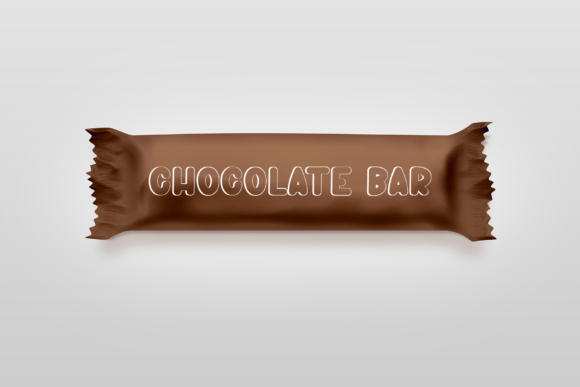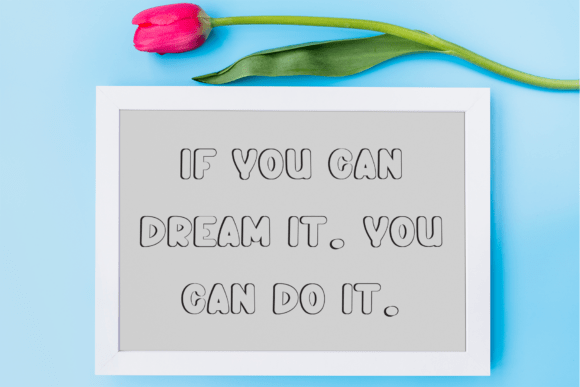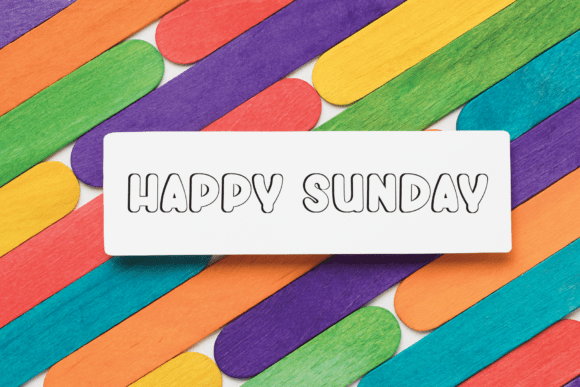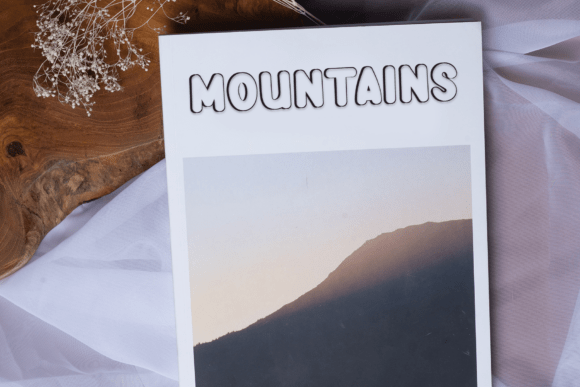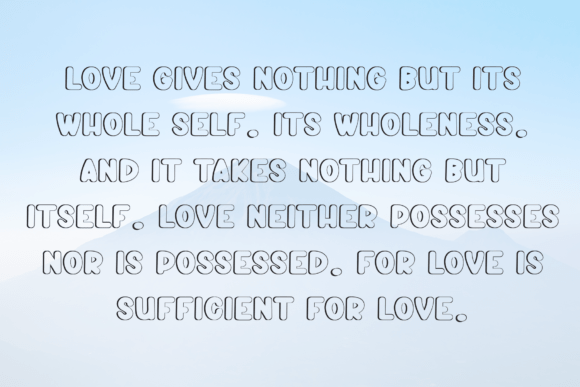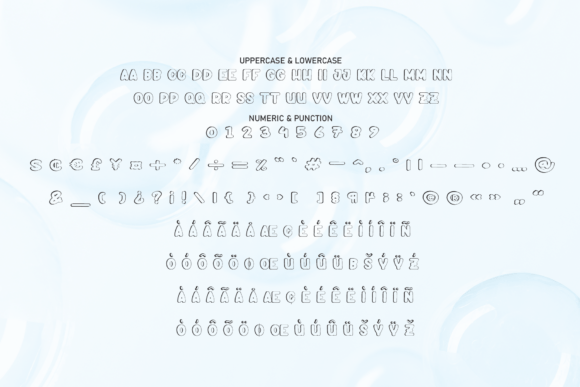
Unleashing the Charm of Handwritten Typography
Have you ever stared at a blank canvas, searching for the perfect font to bring your design to life? The moment of truth arrives when you finally find the one that speaks to your vision, and for many creatives, that moment is all about capturing the essence of handwritten typography.
Enter the Bubble Font, a delightful display font that effortlessly blends simplicity with a friendly, approachable vibe. Designed to capture the charm of modern handwritten typography, this versatile font features clean lines, balanced letterforms, and subtle rounded edges that add a warm and inviting touch to any design.
Whether you’re crafting a brand identity, creating eye-catching headlines, or designing engaging packaging, the Bubble Font is an invaluable asset for designers seeking to deliver clarity and charm in equal measure.
Bubble Font Key Features
- Unique Characteristic: The font features rounded, bubbly shapes for letters and symbols, giving it a playful and whimsical feel.
Bubble Font Review
First off, I love the playful, whimsical feel that the Bubble Font brings to the table ✨. The rounded shapes and soft edges evoke a sense of friendliness and approachability, making it perfect for children’s books, greeting cards, or any other project where a lighthearted vibe is desired. The font also has a unique, hand-drawn quality that adds to its charm.
The Bubble Font is highly customizable, with a wide range of font sizes, colors, and styles to choose from. This makes it easy to adapt to different design contexts and ensure that the font remains consistent throughout your project ✨.
- ⚠️ Limited legibility at small font sizes, which can make it difficult to read in certain contexts.
- ⚠️ The font’s playful nature can sometimes feel overwhelming or childish, which may not be suitable for more serious or professional projects.
- ⚠️ The font may not be suitable for large blocks of text, as the rounded shapes can make it difficult to distinguish between individual letters.
Overall, the Bubble Font is a delightful addition to any designer’s toolkit. While it may have some limitations, its unique charm and customizability make it a great choice for the right projects ✨. With a little creativity and restraint, the Bubble Font can add a touch of whimsy and personality to your designs that’s hard to find elsewhere.
The bubble font is ideal for creating playful and eye-catching designs, such as:
– Party invitations
– Children’s books and educational materials
– Web headers and titles